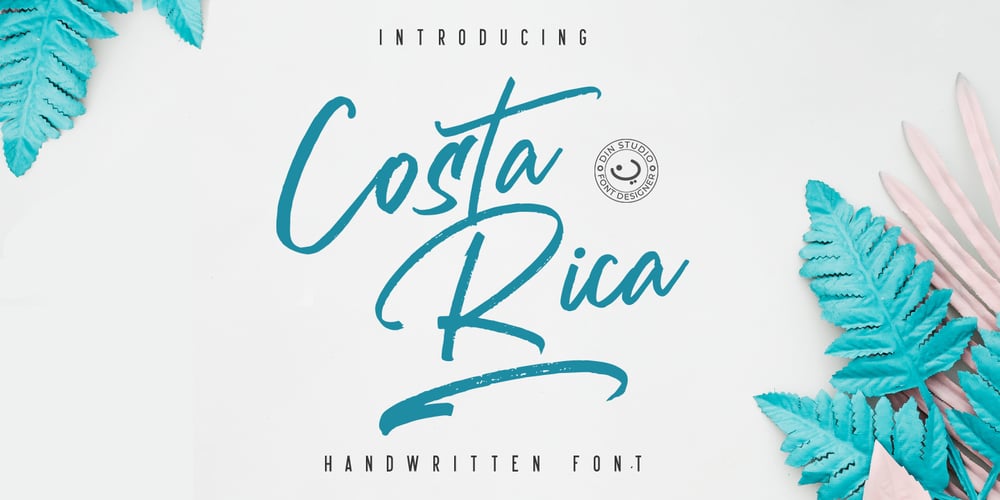
Costa Rica
Costa Rica font
Costa Rica Font Family was designed by Donis Miftahudin and published by Din Studio. Costa Rica contains 2 styles and family package options. Costa Rica is a handwritten brush font. The texture from the brush font will make your design more beautiful and powerful. This font is suitable for any design like branding, quotes, t-shirt printing and more. Features: – Accents (Multilingual Characters) – 26 Alternates – 26 Extra Swashes – PUA encoded – Numerals and Punctuations (OpenType Standard) I hope you enjoy it! Best Regards Donis M